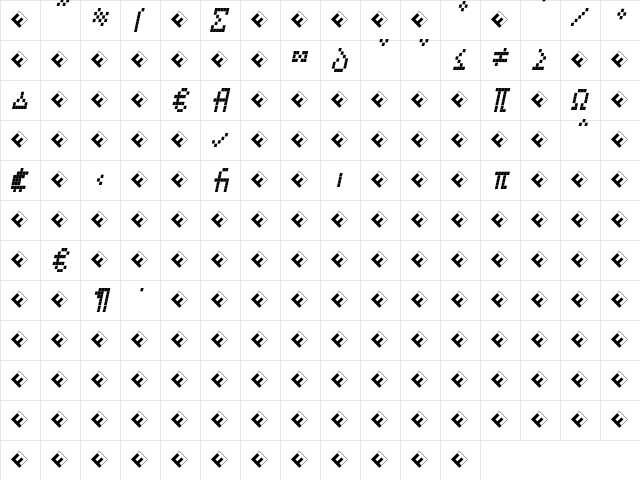
CallSeven-ItalicExp Regular
Design Context for CallSeven-ItalicExp Typeface
CallSeven-ItalicExp is a composed and adaptable typeface that performs quietly and consistently across a wide range of design contexts. The dynamic lean of this cut emphasises speed and emphasis in any layout.